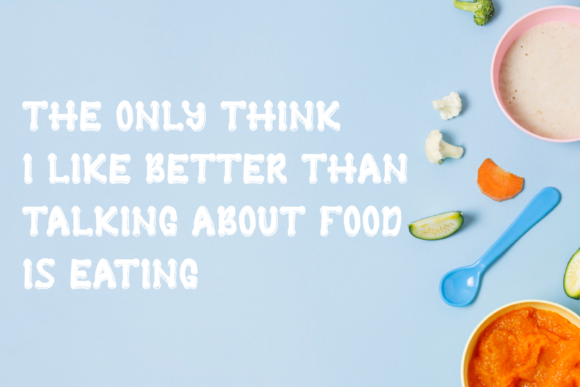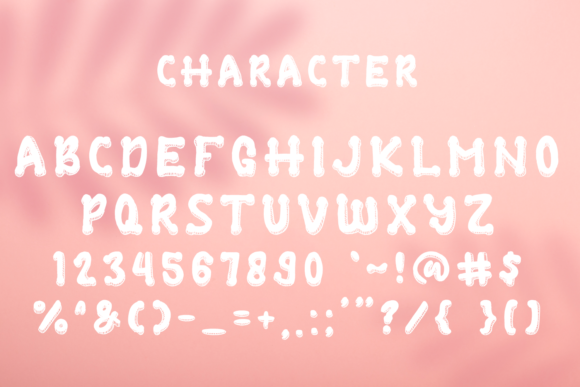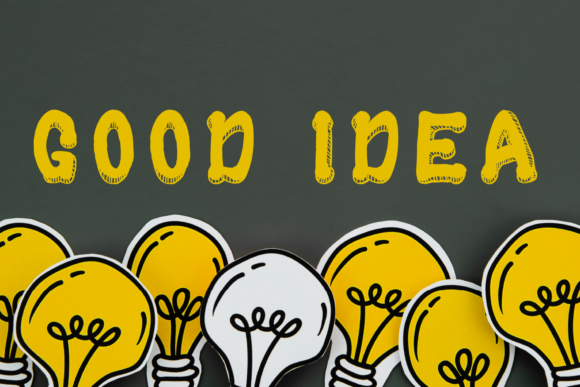
Introduction to Kiki House Font
Kiki House is a cool and interestingly designed display font.
Whatever the topic, this font will be a wonderful asset to your font library, as it has the potential to enhance any creation .
Kiki House Font offers exceptional quality and versatility, making it a valuable addition to your design toolkit. Whether you’re creating for personal projects or commercial use, Kiki House Font delivers professional results.